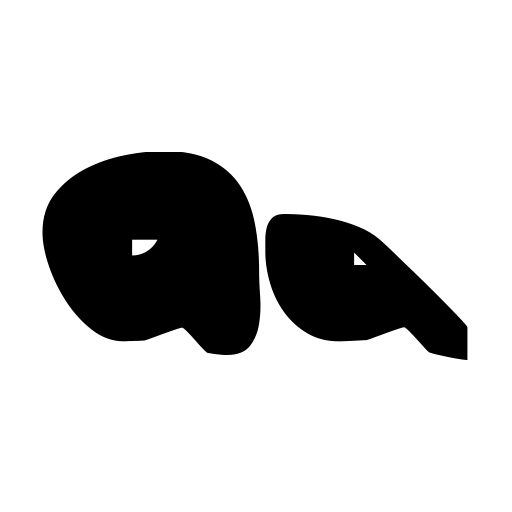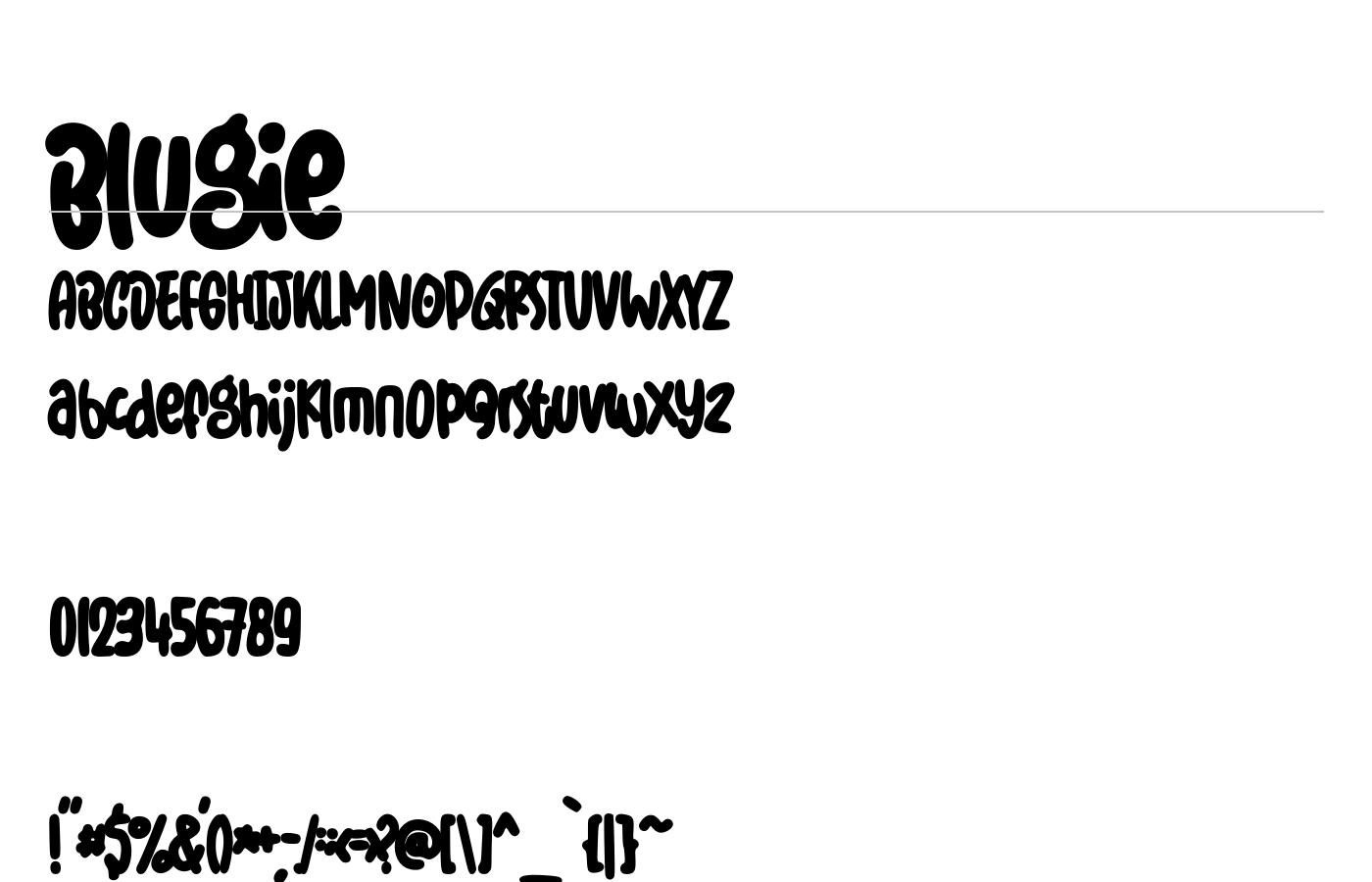
Blugie is a bold, playful sans serif font with rounded, thick strokes and a fun, hand-drawn feel. Its bubbly letterforms and high x-height give it an approachable and whimsical personality, making it ideal for creative, informal designs like children's books, playful branding, or eye-catching headlines. This font works best where a lively and unique touch is needed to attract attention and evoke a sense of joy and friendliness.
Blugie Font
About Blugie Font
| Font family | Blugie Font |
| Designer | Muhammad Ridha Agusni |